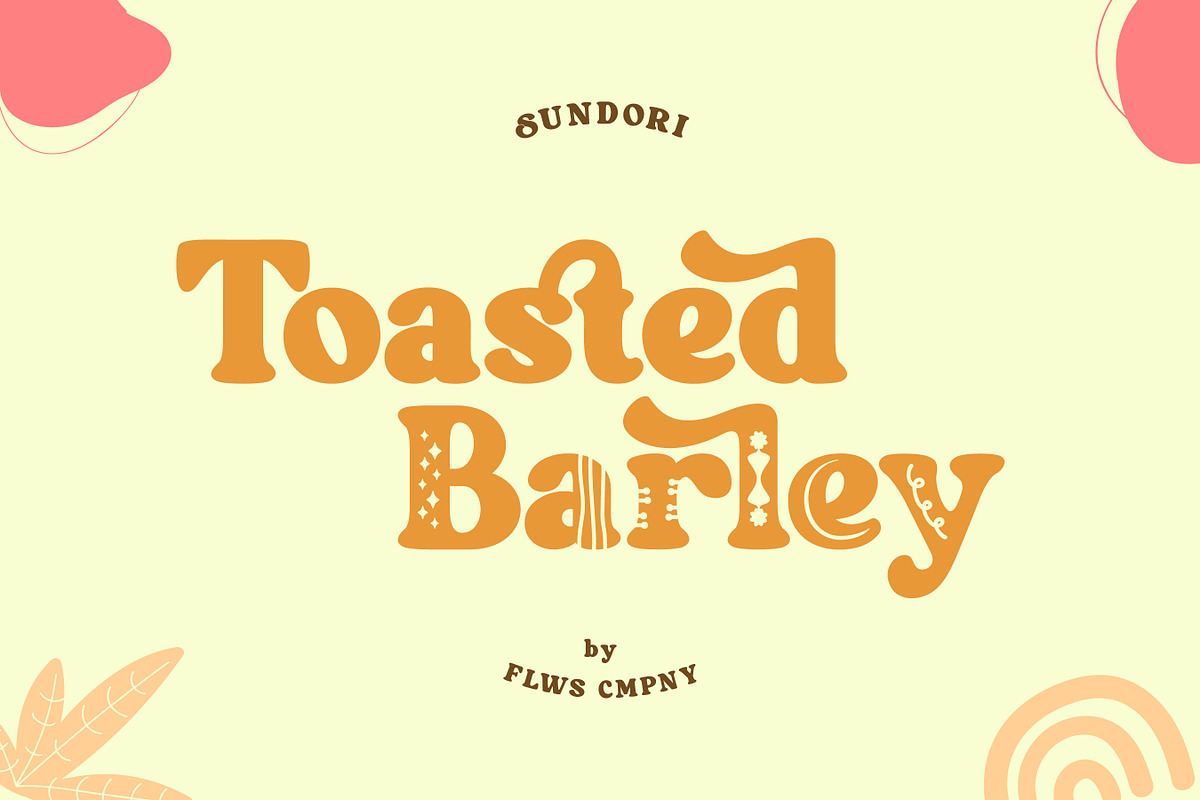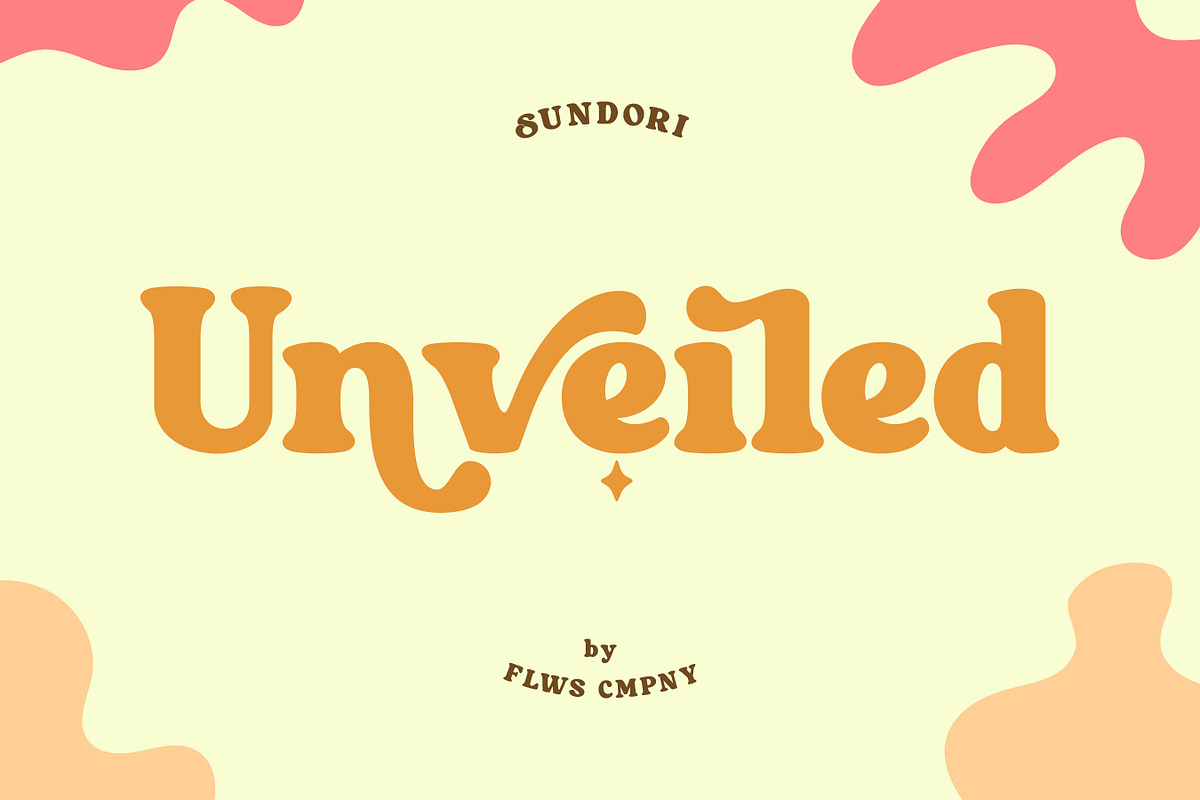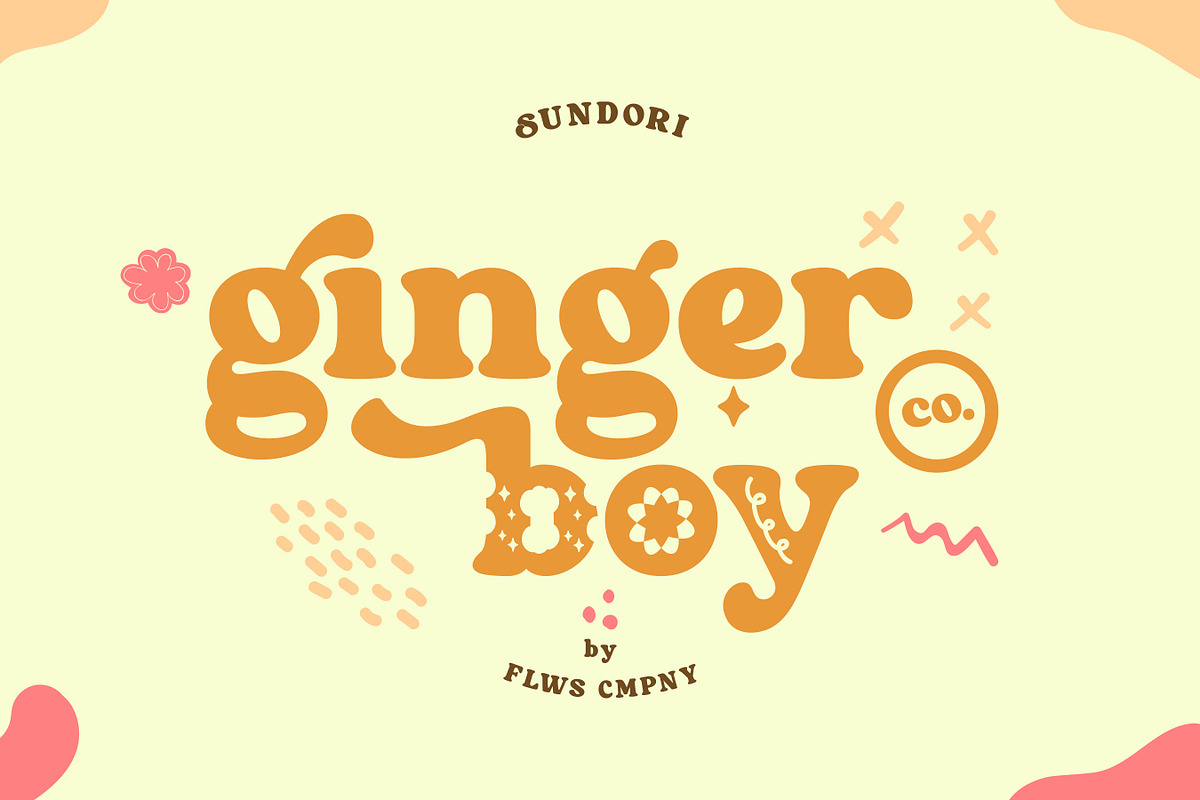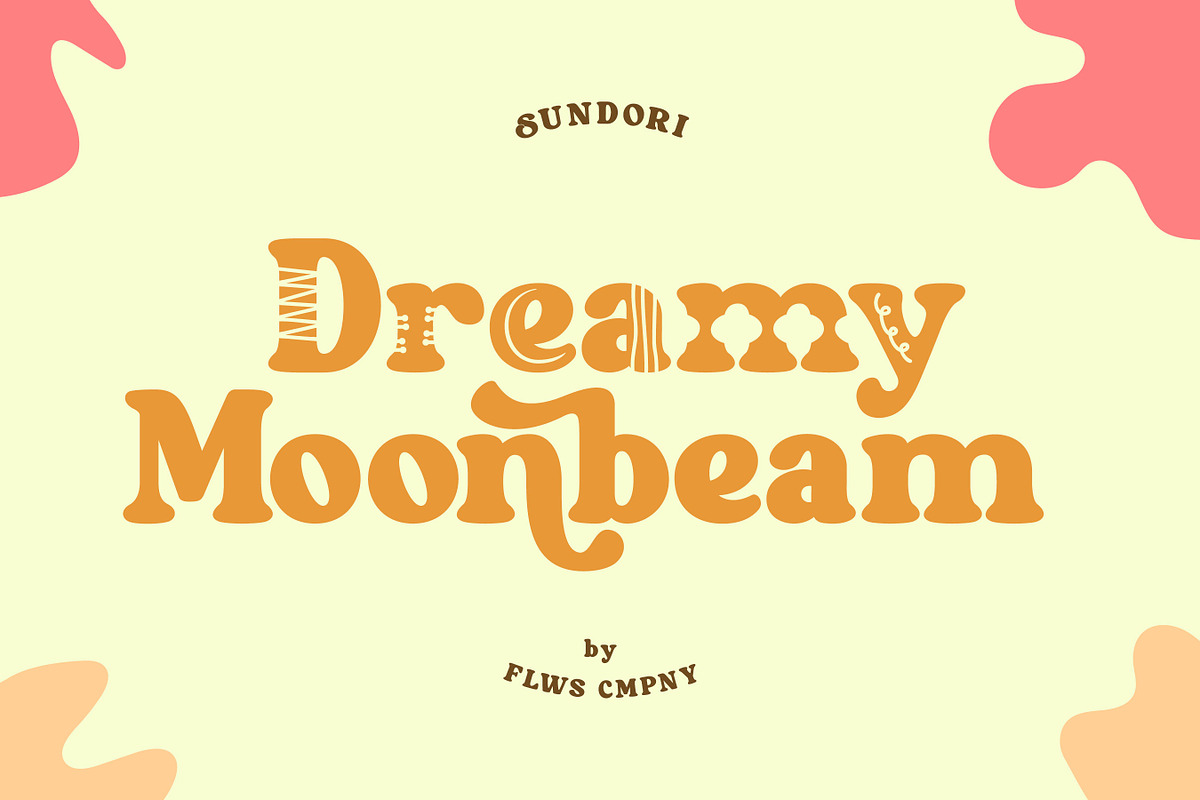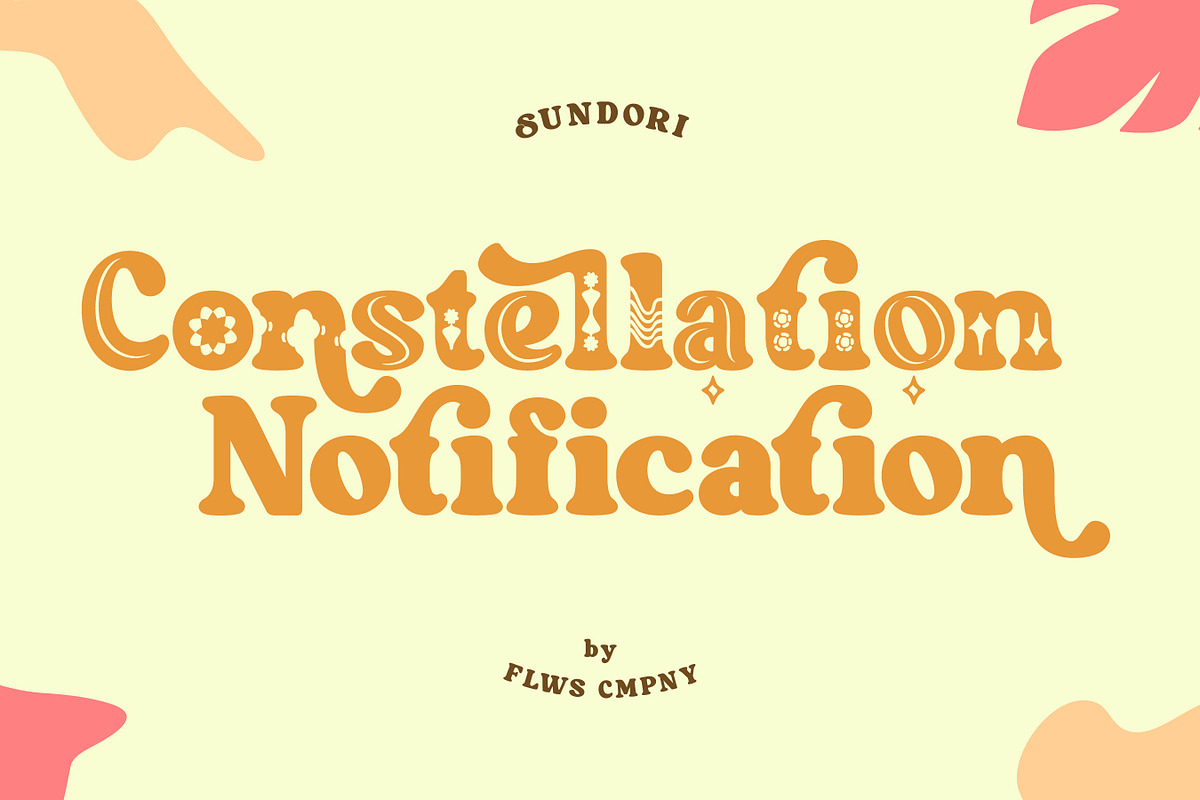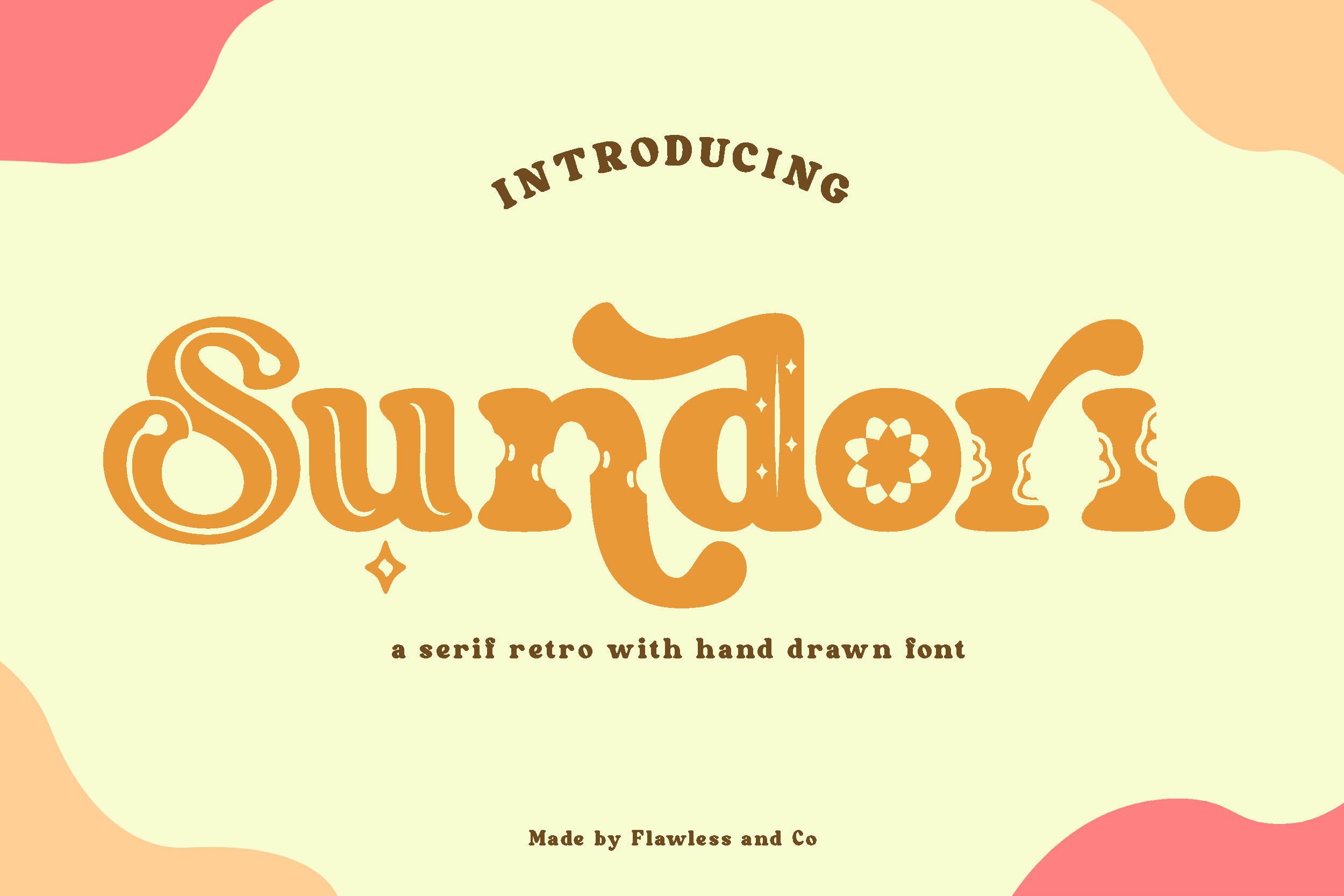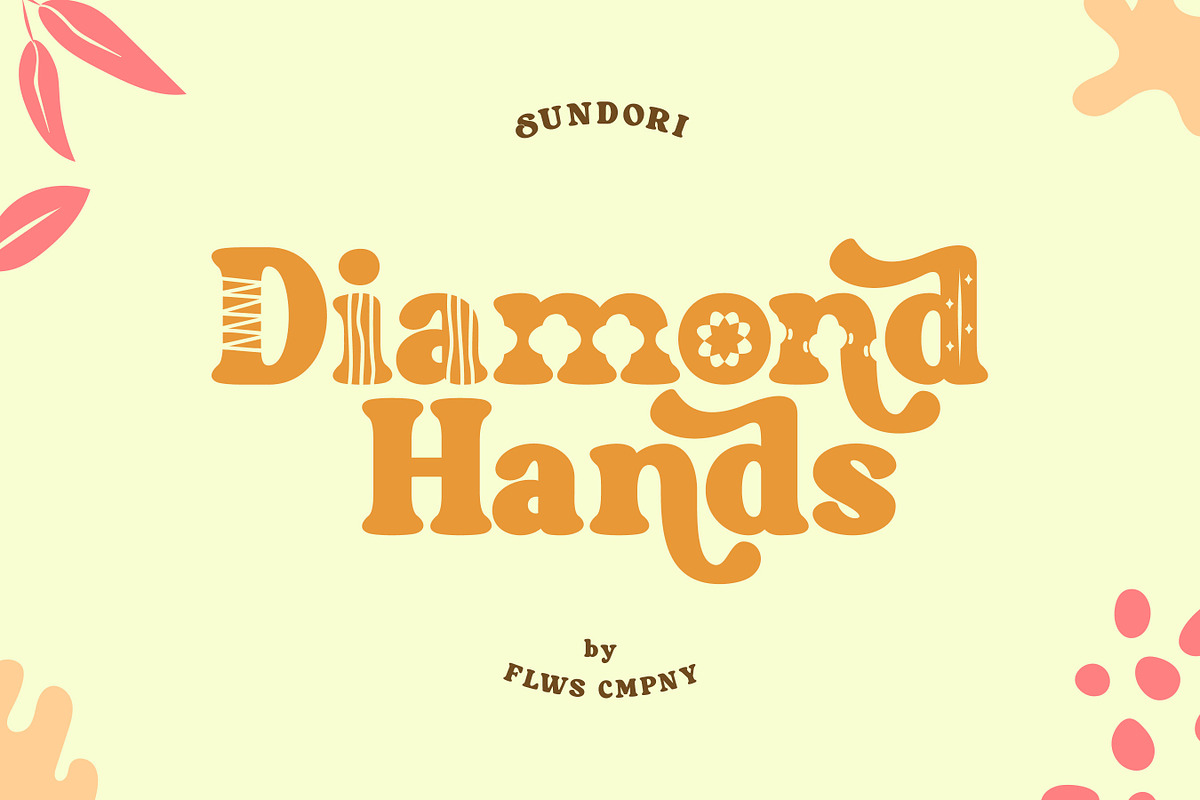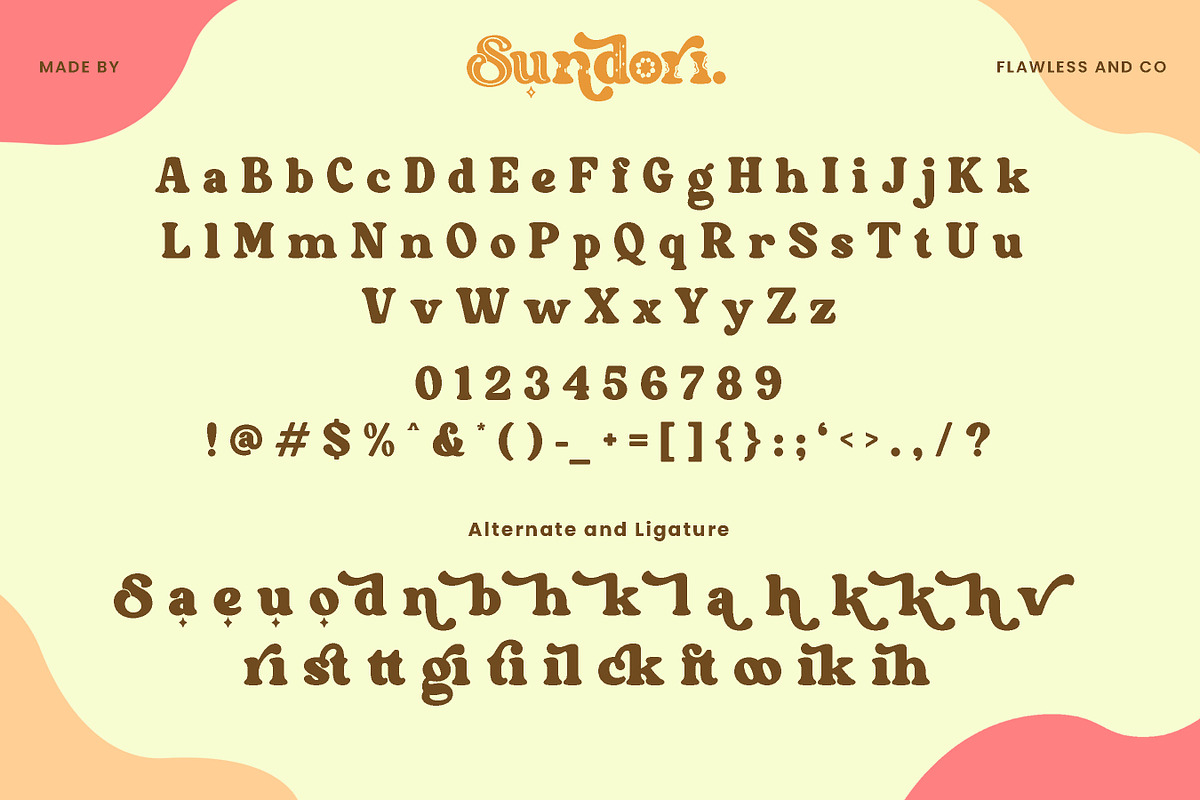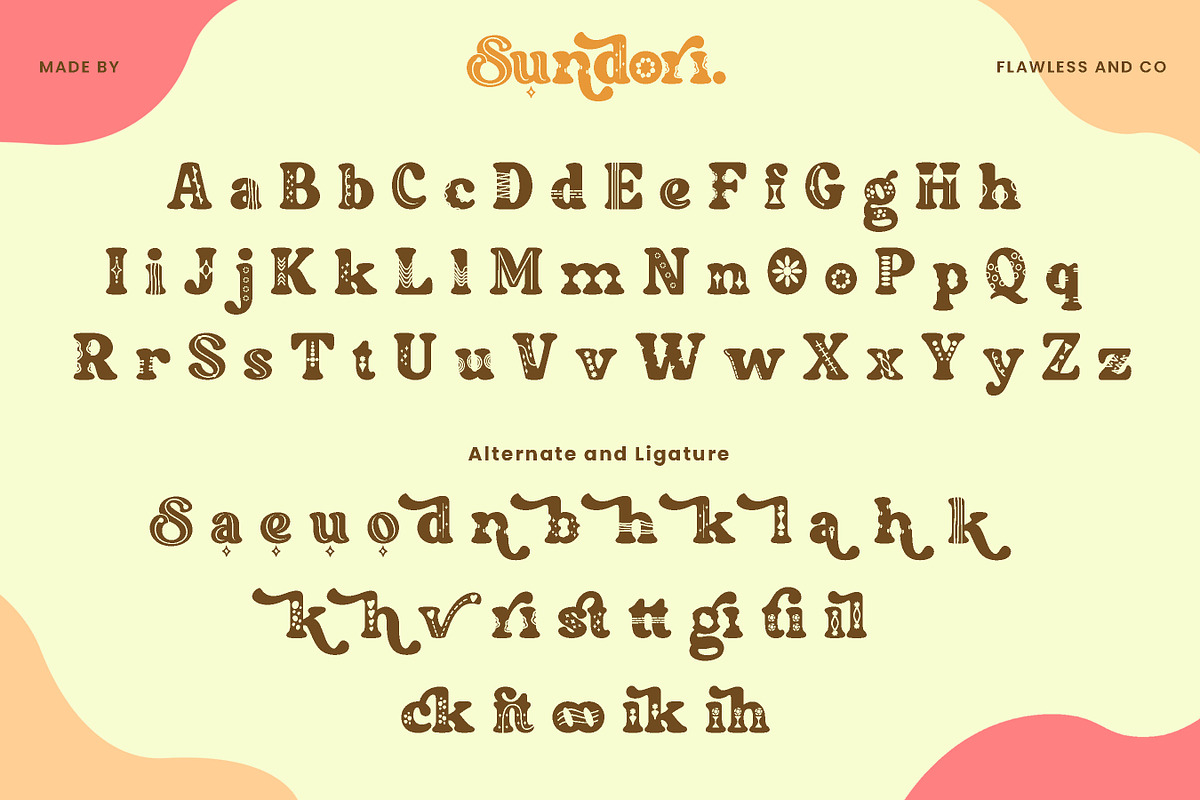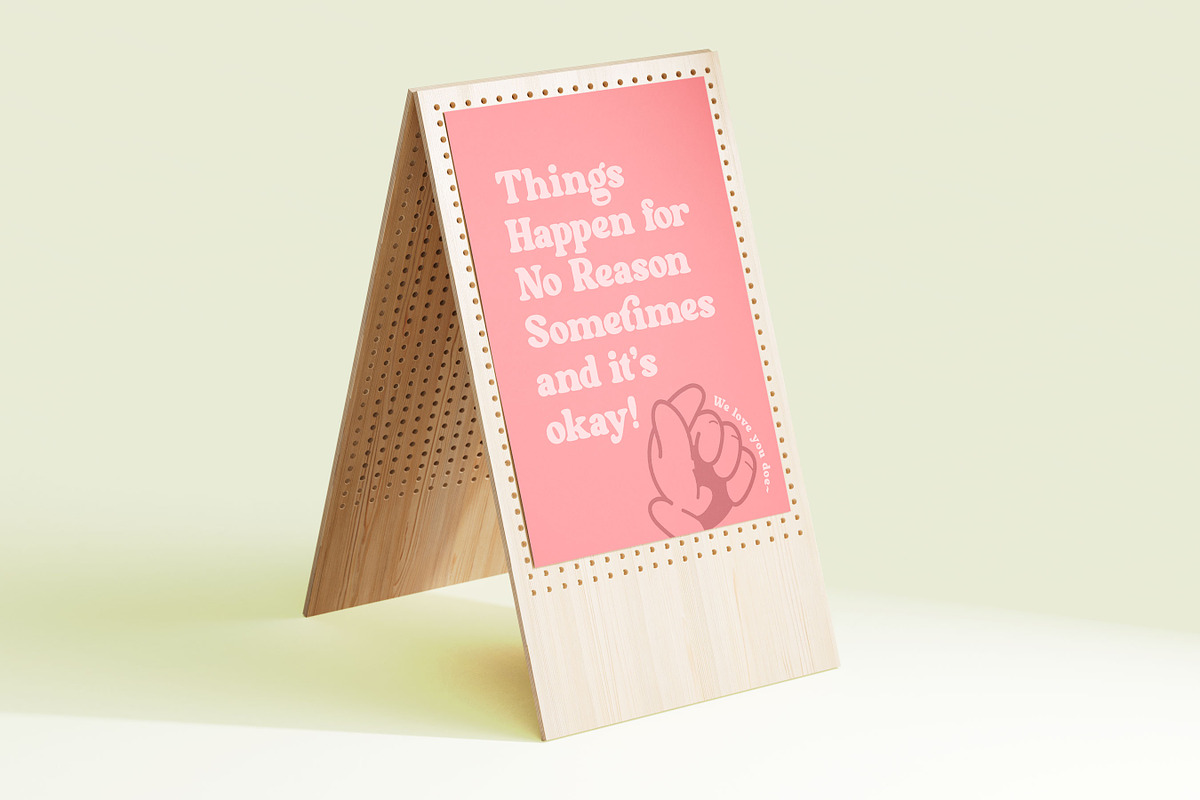
Sundori - Handdrawn Serif Retro Font
Introducing "Sundori" – A Serif Retro Font with Hand-Drawn Charm. Embark on a journey through time and artistic expression with "Sundori," a serif retro font that marries the elegance of bygone eras with the warmth of hand-drawn authenticity. This font has of two distinctive styles – Regular and Fun — adorned with patterns in fun styles that add an extra layer of delight to your designs. This serif typeface is more than letters on a page; it's a journey into a world where every curve and line tells a story of both nostalgia and innovation.